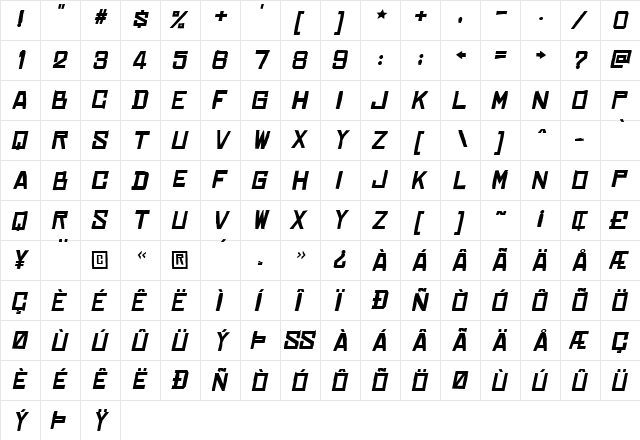
Chinese Rocks Xp Bold Italic
Design Context for Chinese Rocks Xp Typeface
Chinese Rocks Xp is a composed and adaptable typeface that performs quietly and consistently across a wide range of design contexts. The dynamic lean of this cut emphasises speed and emphasis in any layout. Its bold stroke weight gives it real presence on the page.
Pro Tip: Use Chinese Rocks Xp for emphasis, pull quotes, and subheadings where its slanted energy can add rhythm to the layout.